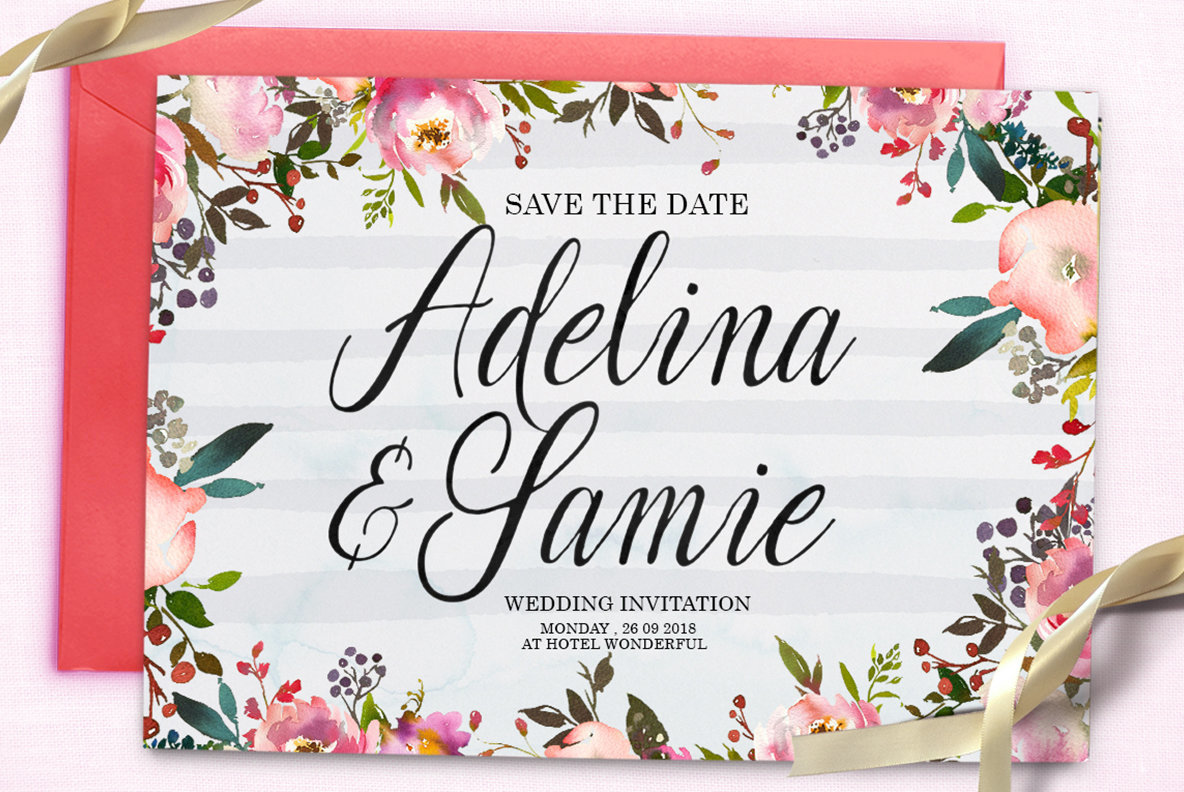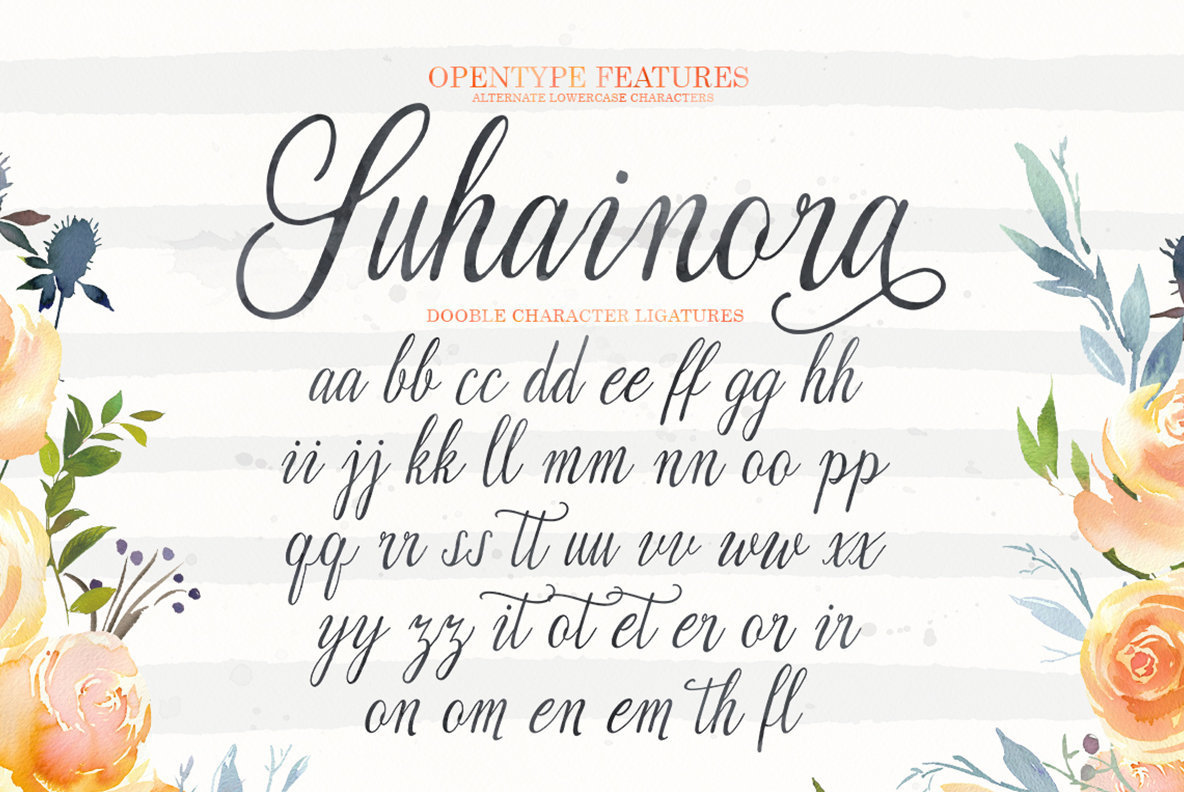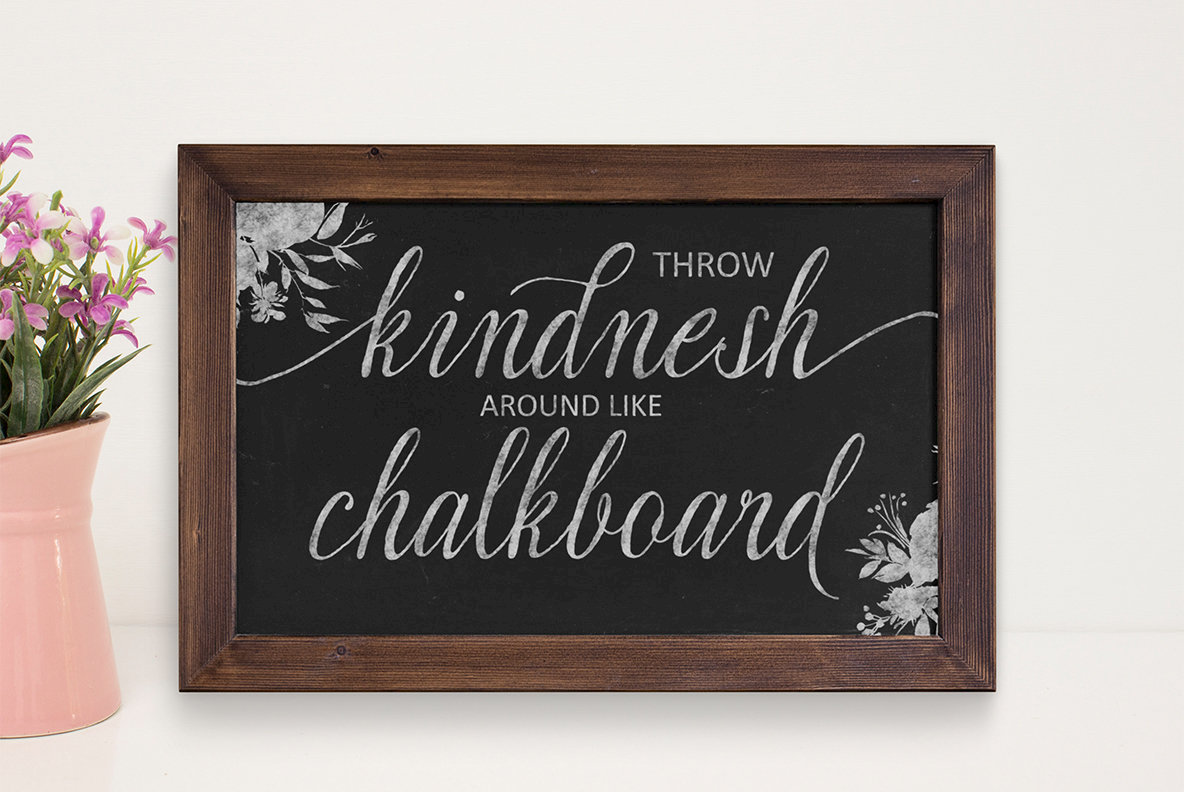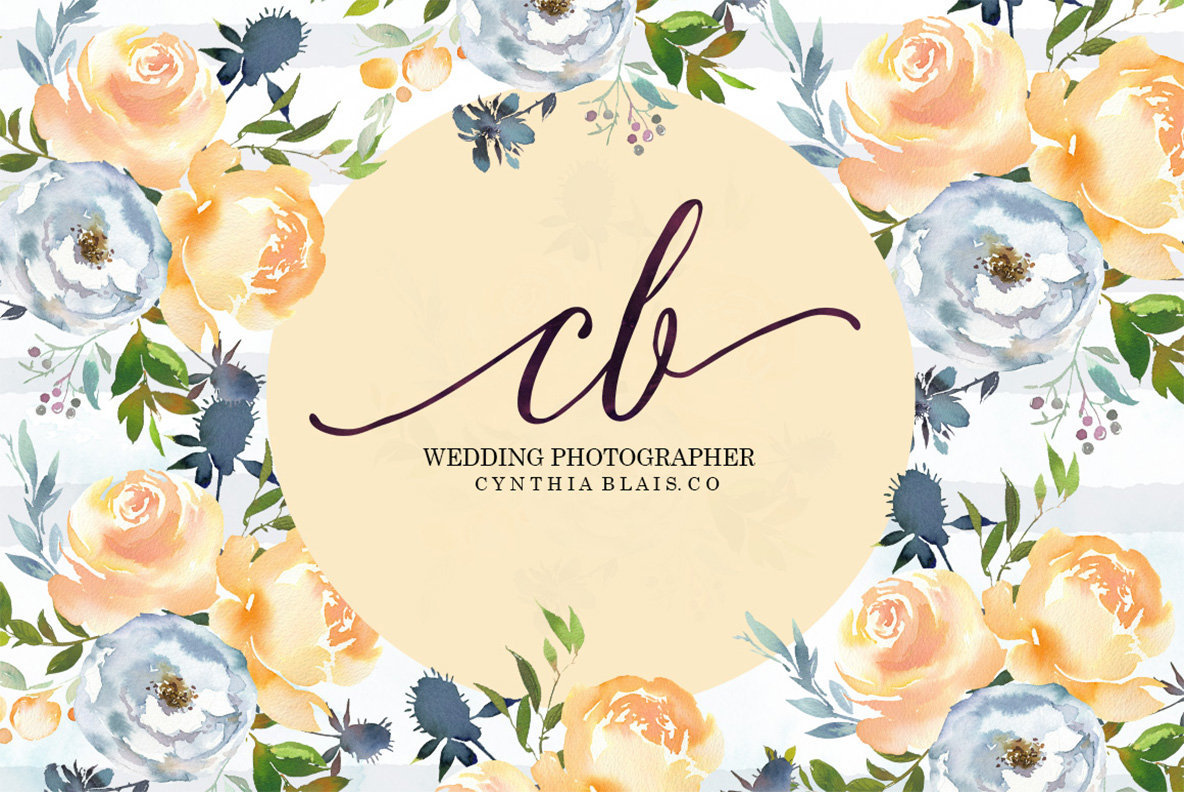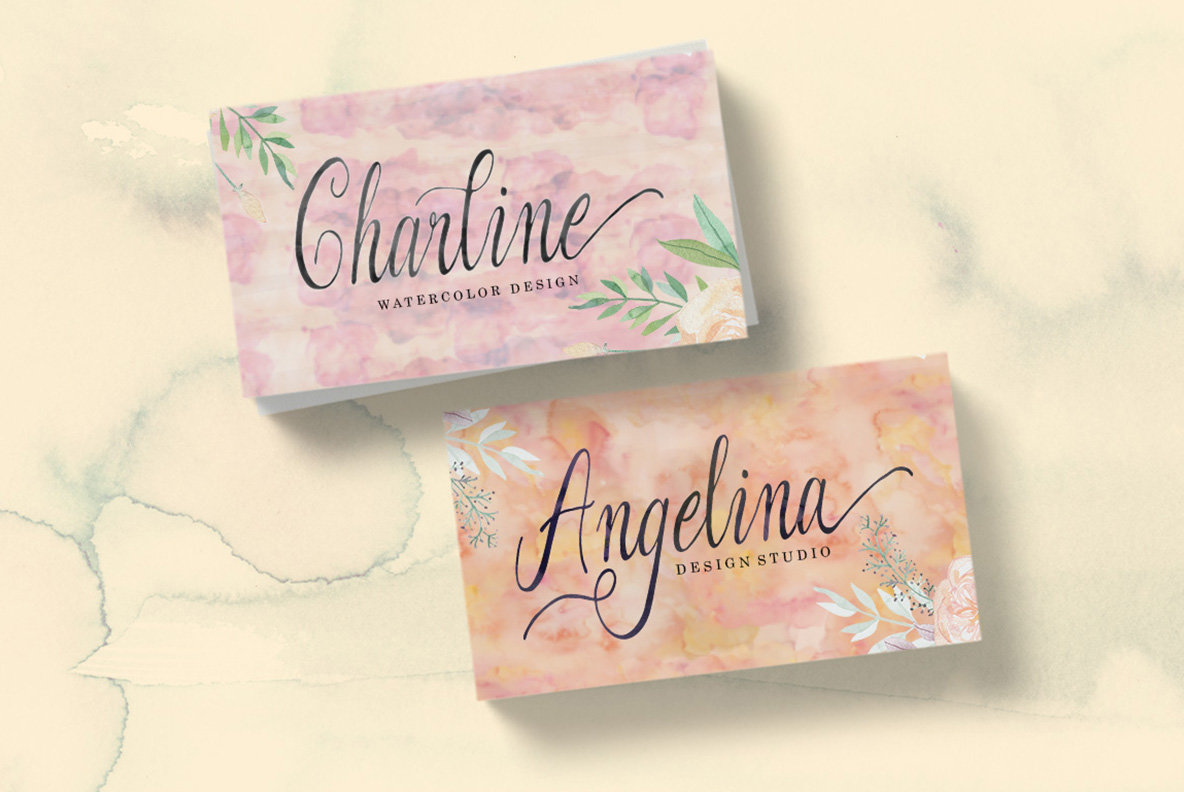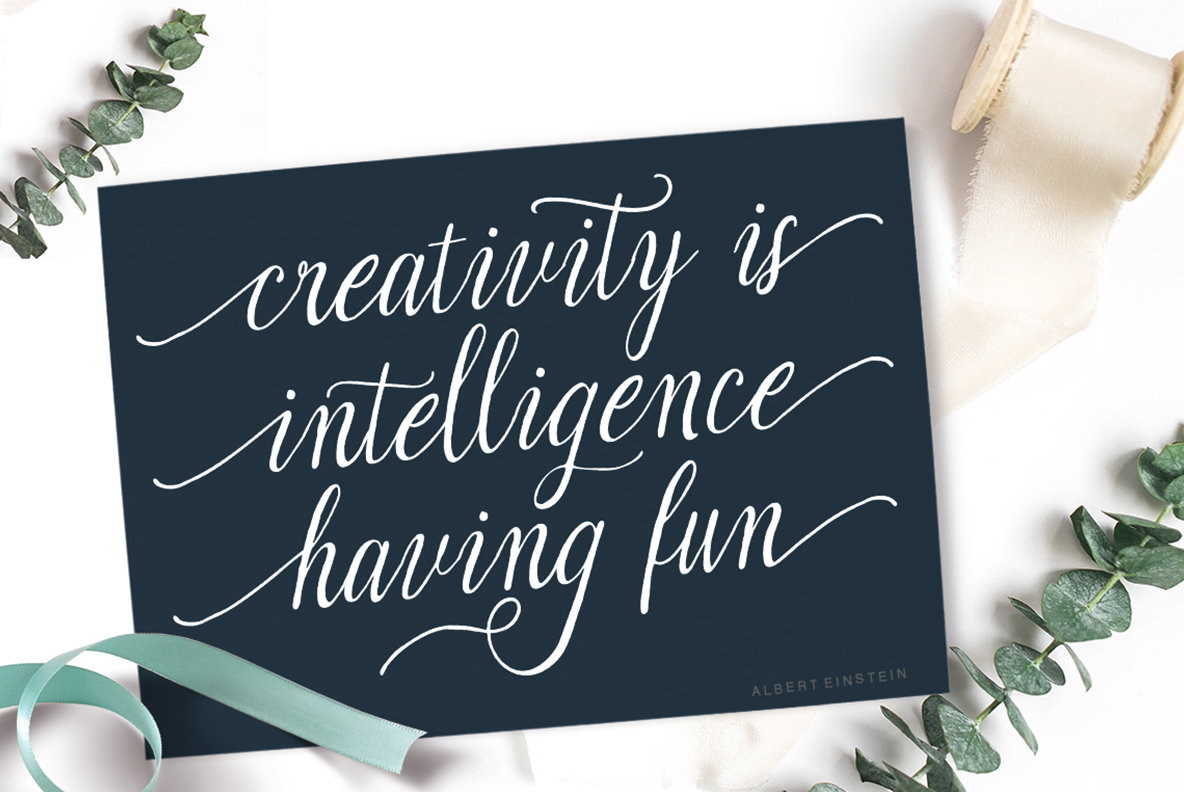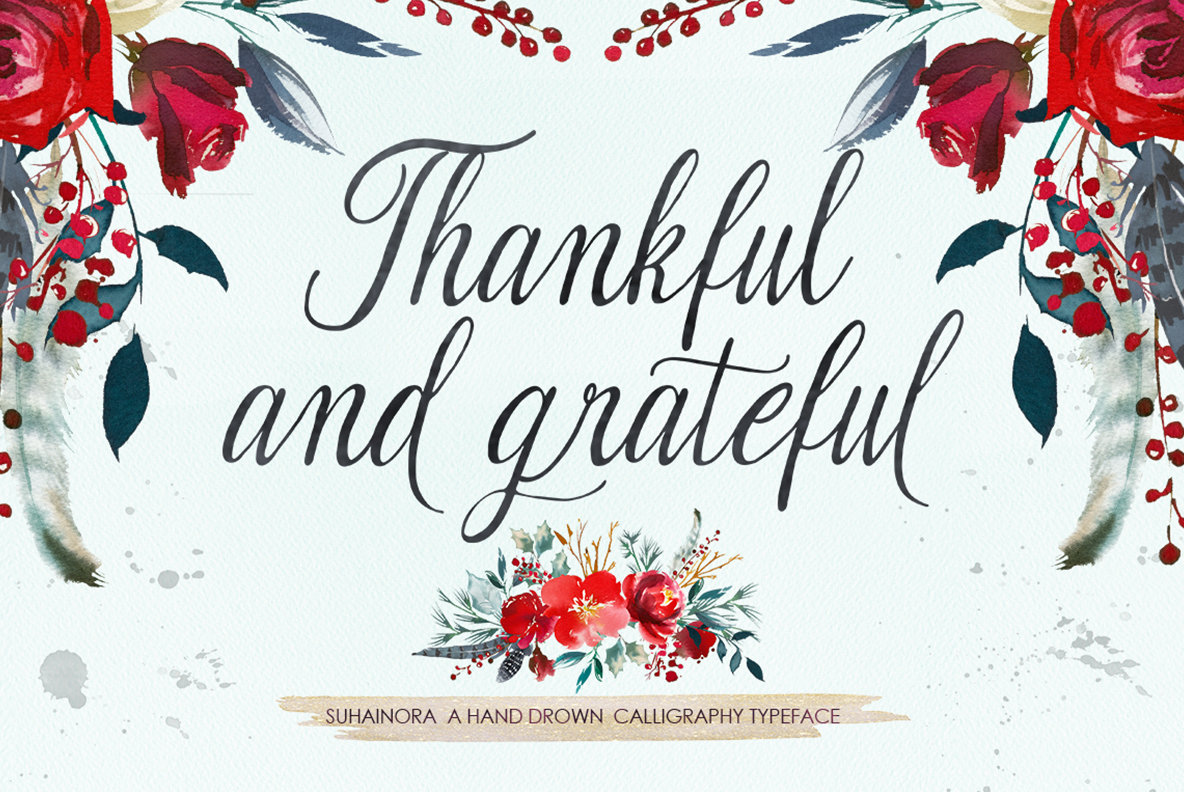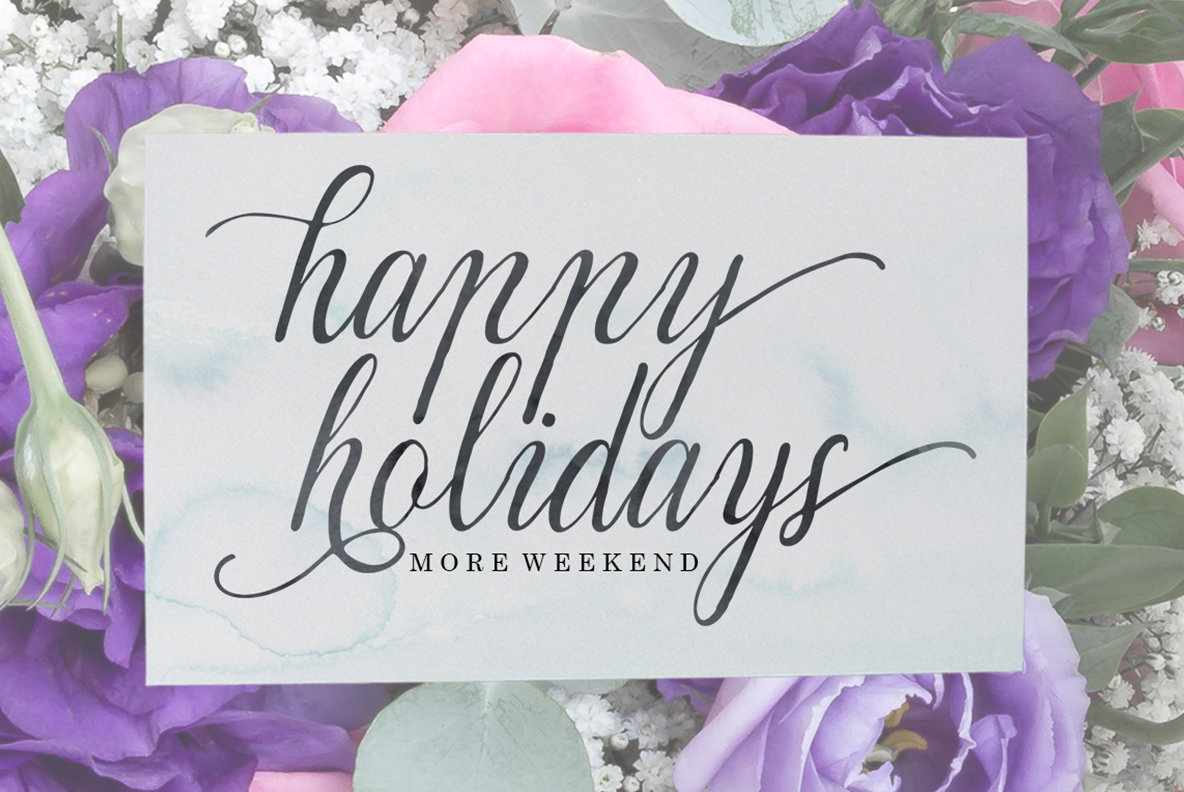
Suhainora
The Suhainora Script, crafted by Akmal Yusar, encapsulates a hand-drawn calligraphy aesthetic that is both organic and dynamic. Its energetic style lends itself perfectly to a versatile range of creative applications, making it an ideal choice for titles, signatures, logos, and beyond. Wedding invitations, corporate letterheads, signage, and posters also benefit from its unique flair. For designers keen on utilizing OpenType Stylistic alternates, Suhainora Script supports platforms that accommodate these features. Furthermore, integration with Windows Character Map or Adobe Illustrator enables easy access to alternative characters, enhancing the flexibility and creativity of your design work.Suhainora Script: Organic Calligraphy for Dynamic Designs
Features of Suhainora Script